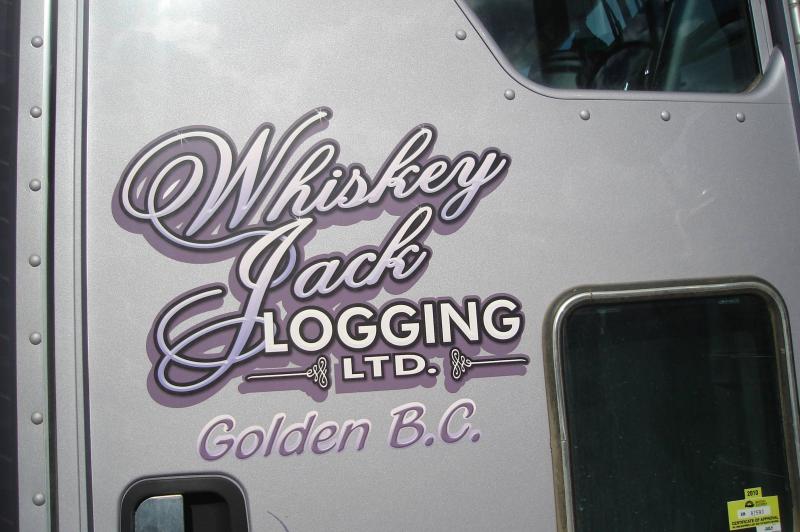
Any Ideas on this font, I'm not good at handwritten ones.
they didn't do the customers' of the sample any favors in readability by extending and connecting the two lines...YUK.